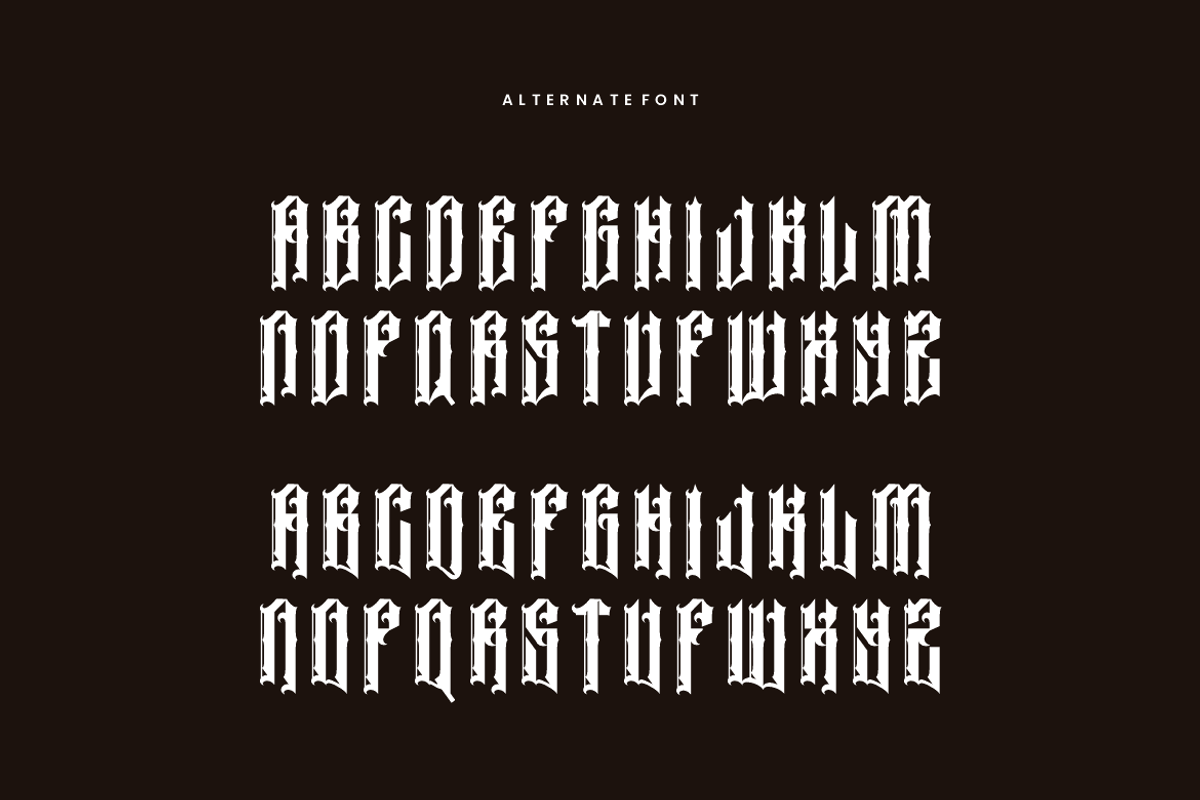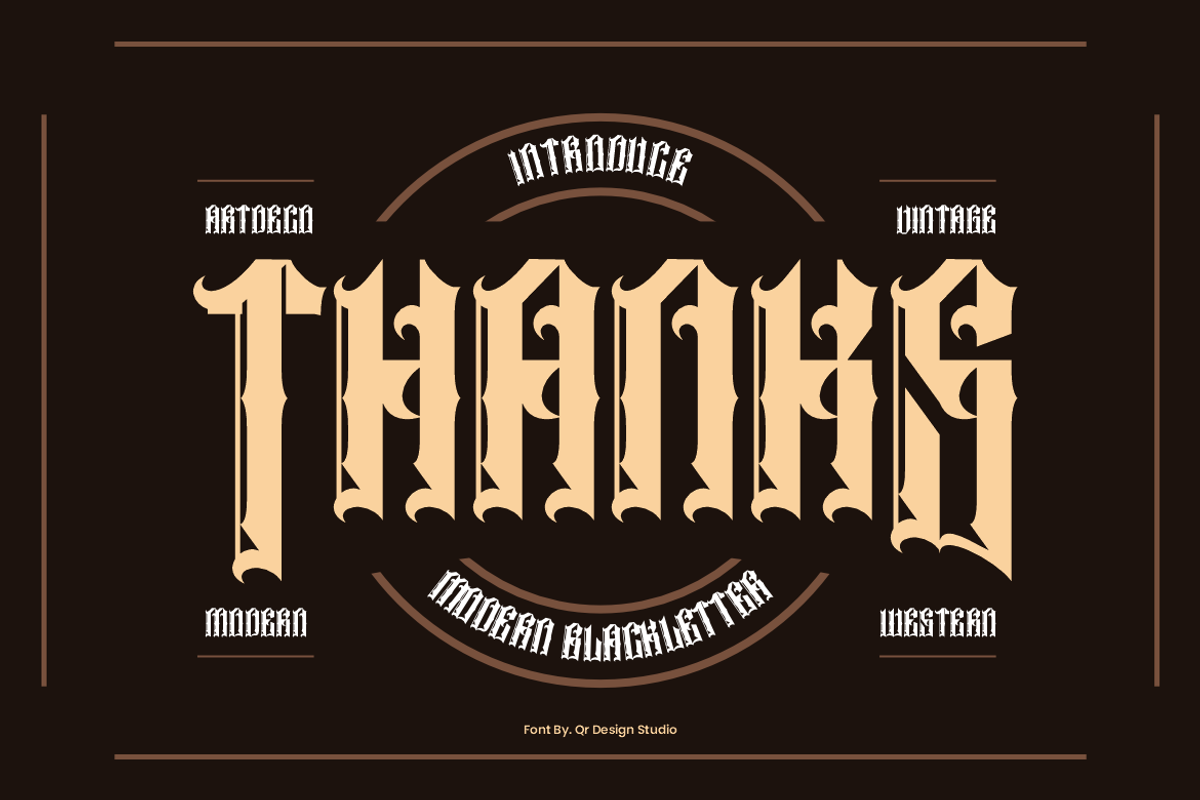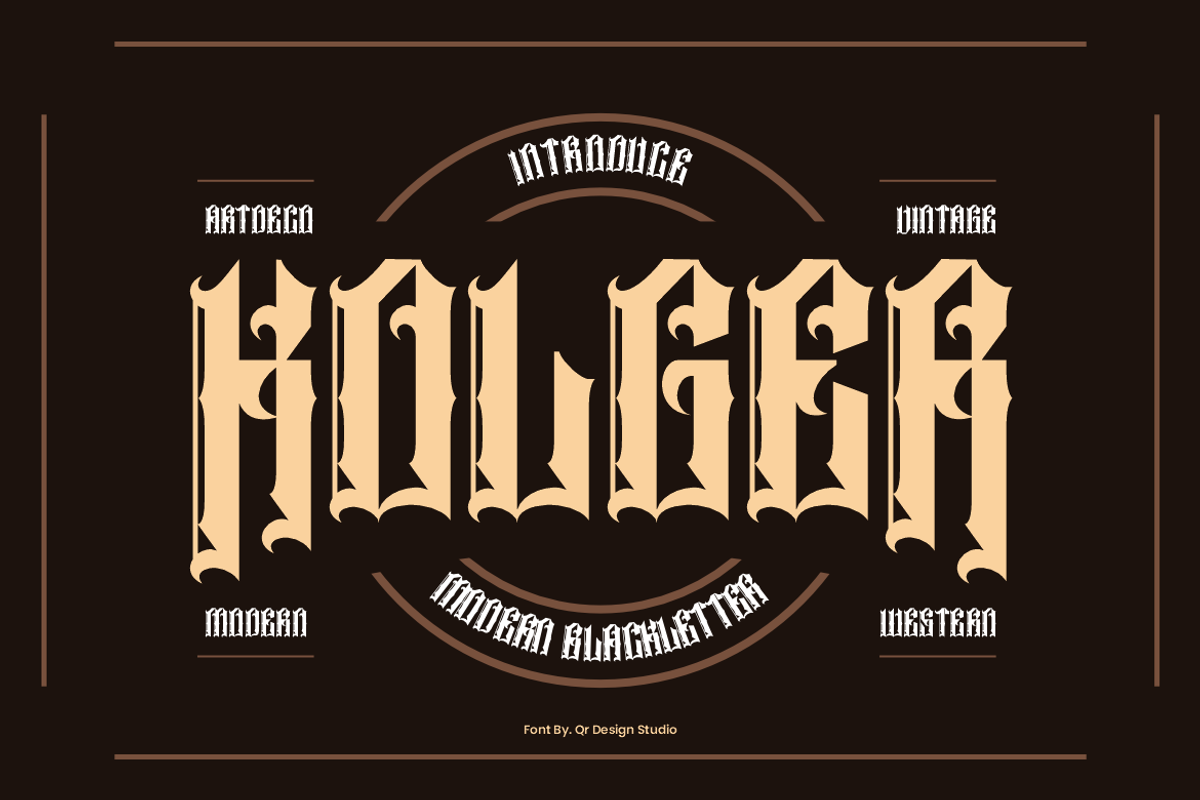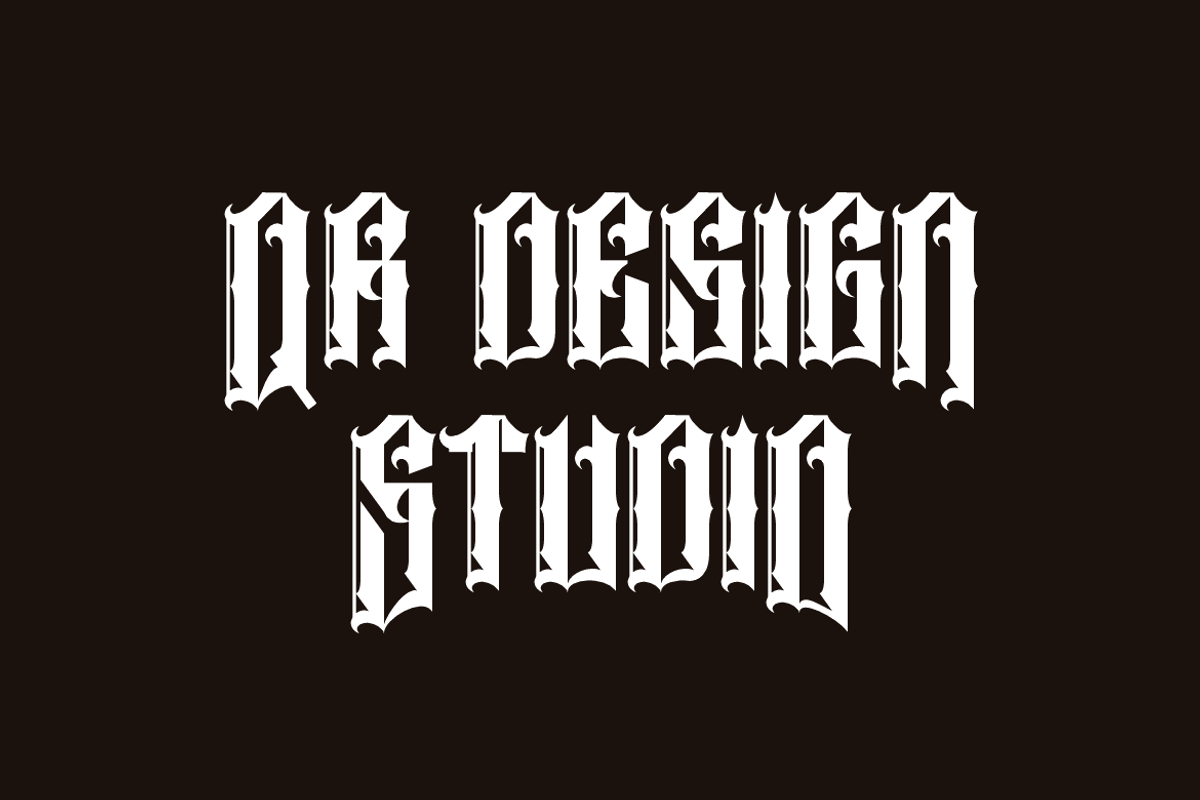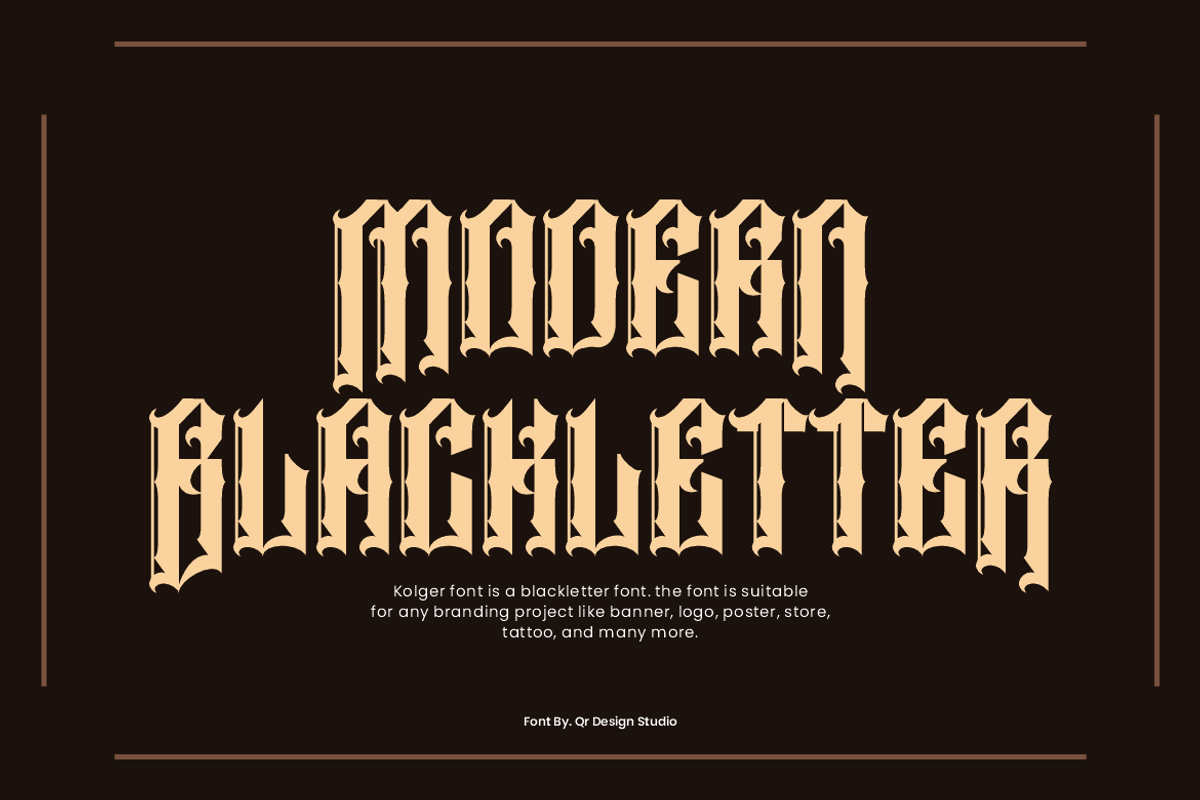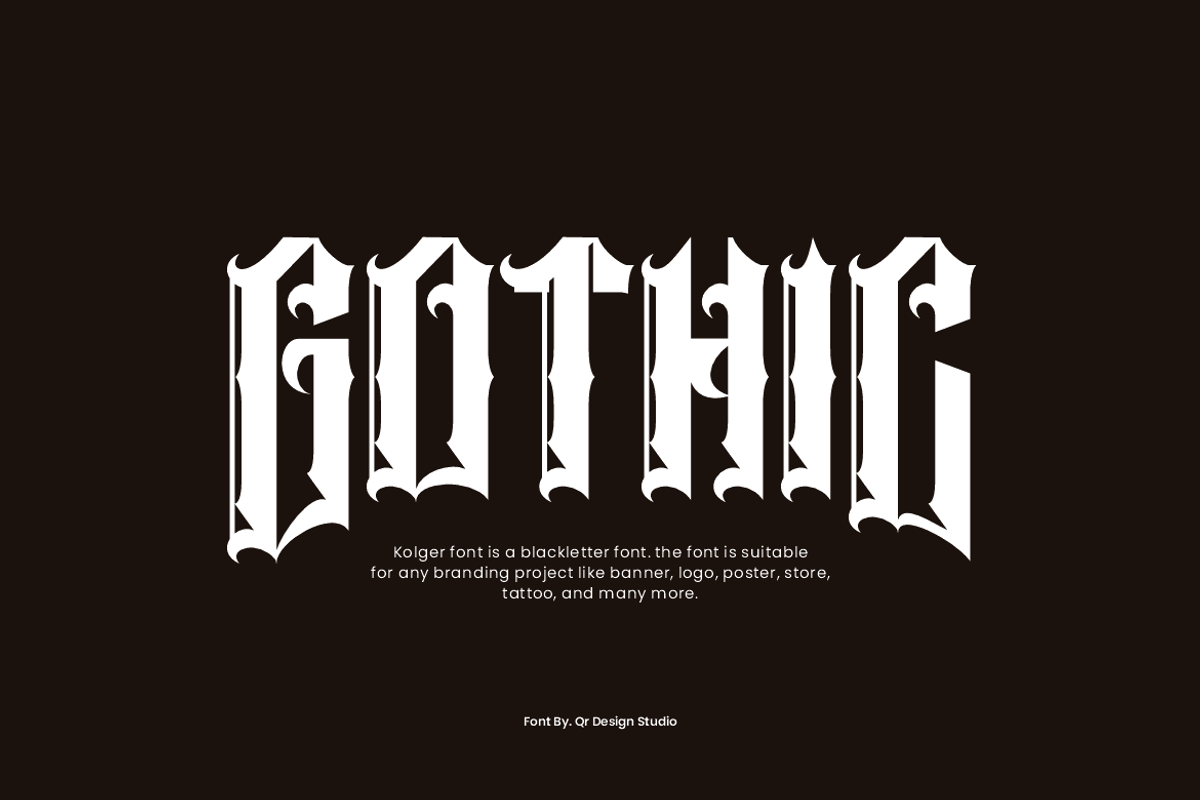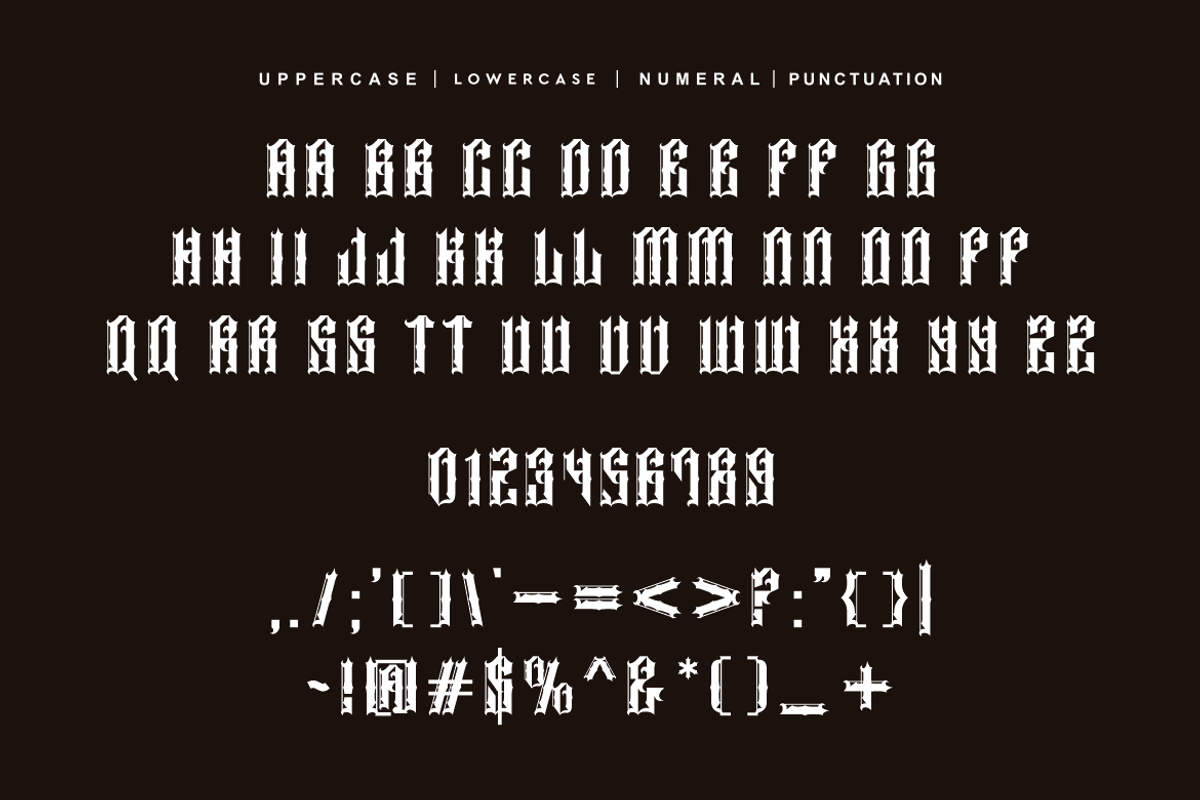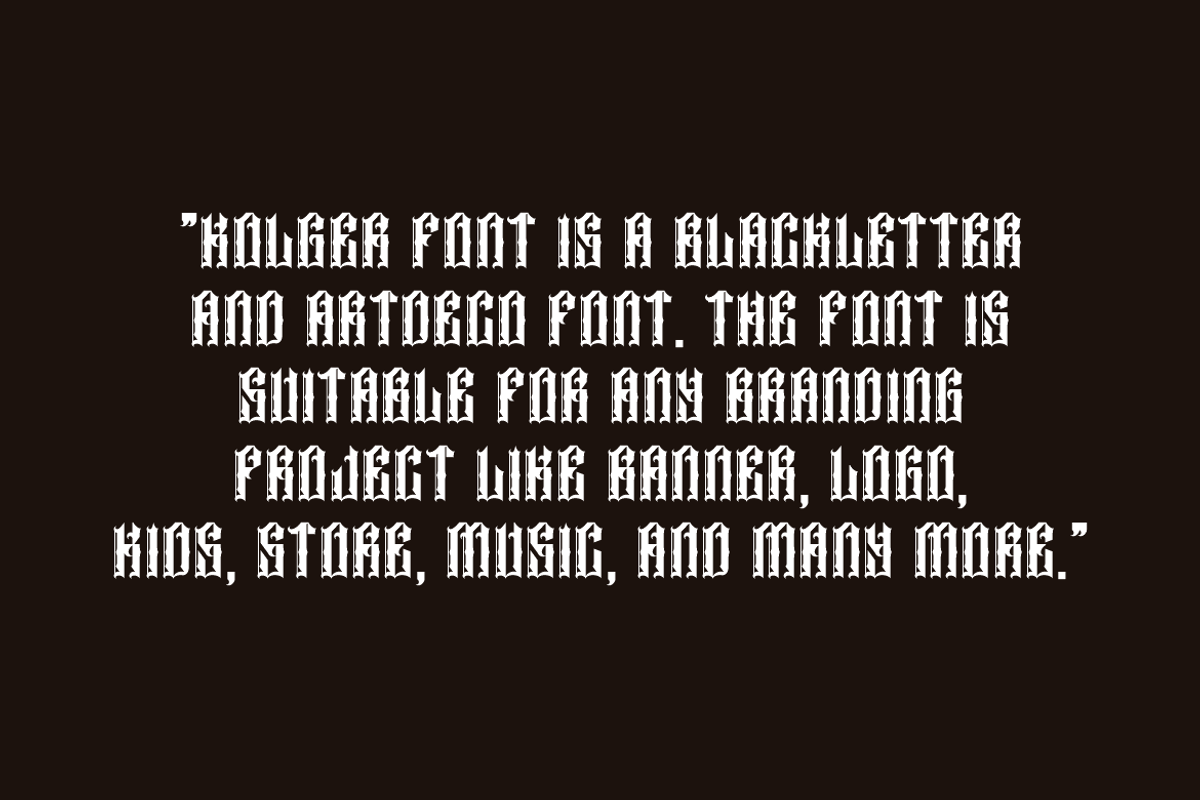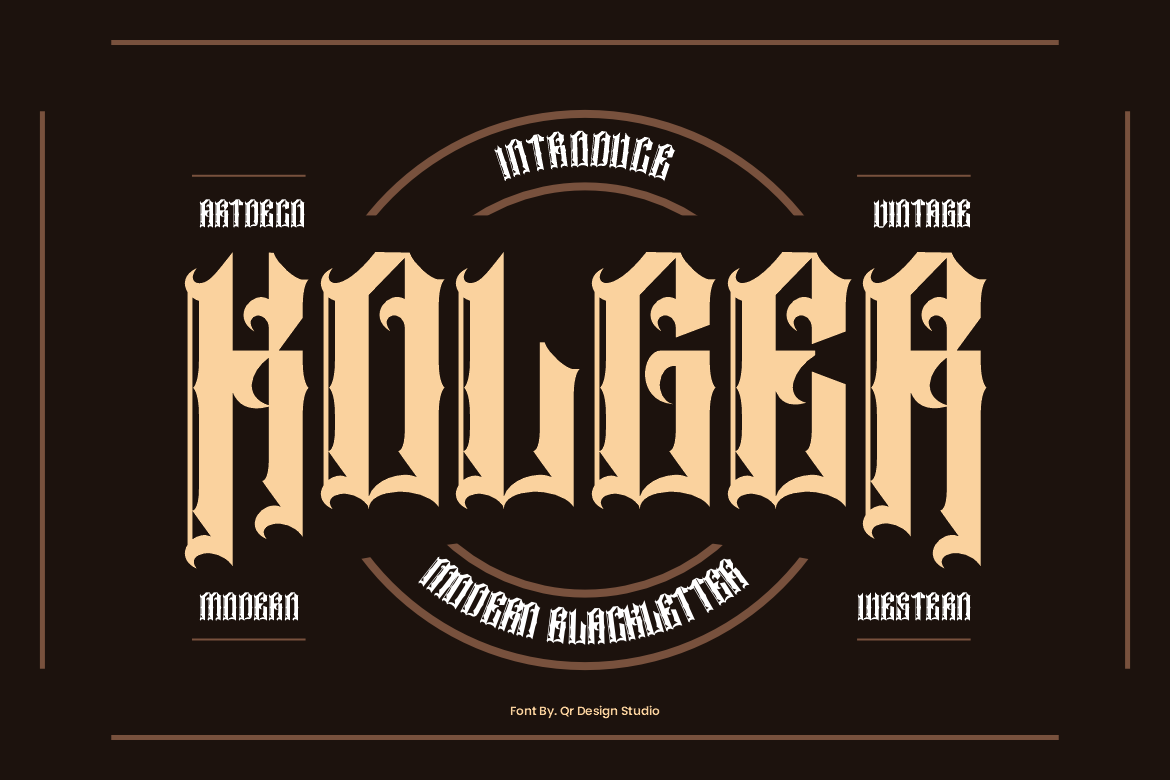
Kolger - Modern Blackletter Font
Kolger Font is a blackletter and authentic display font. The font is suitable for any branding project like poster, logo, tattoo, and many more. Outstanding in a wide range of contexts.